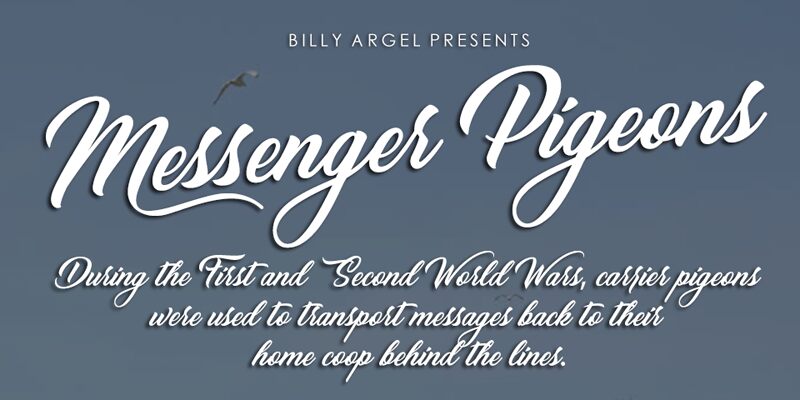
Messenger Pigeons is a captivating calligraphic font designed by Billy Argel. The script's elegant, flowing strokes evoke a sense of graceful movement, hinting at the agility and swiftness of the messenger pigeons that inspired its creation. The intricate loops and ligatures add a touch of whimsy, making this font an ideal choice for projects that require a touch of artistry and charm. From wedding invitations to book covers, Messenger Pigeons seamlessly bridges the gap between timeless tradition and modern sensibilities, elevating any design with its distinctive flair.
This font's versatility extends beyond its aesthetic appeal. Its legibility and distinctive character make it a compelling option for branding, signage, and promotional materials, where it can help convey a sense of heritage and craftsmanship. Messenger Pigeons' unique personality lends itself to a wide range of applications, from high-end stationery to rustic, hand-crafted packaging, making it a valuable addition to any designer's toolkit.
The full version of this font has ligatures for better reading, also opentype features - stylistics alternates.
some ligatures: tt/ff/jj/rr/ss/fg/fig/fz/zz/zj/fj/fy